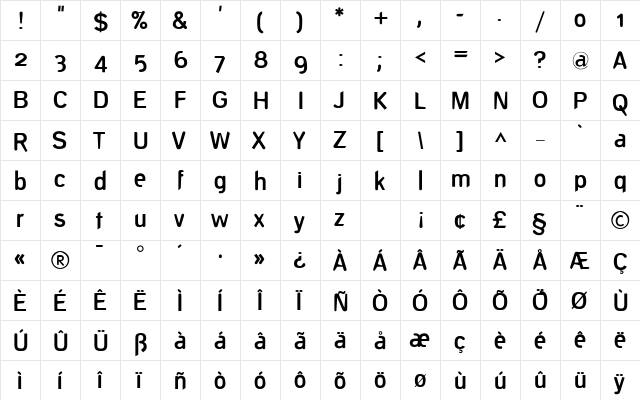
DeconStruct Bold
Design Context for DeconStruct Typeface
DeconStruct takes a measured approach to typography — its balanced proportions and neutral character make it a reliable workhorse for both digital and print work. Its bold stroke weight gives it real presence on the page.
Pro Tip: Use DeconStruct in both headline and body roles to test its range before committing to a single application.